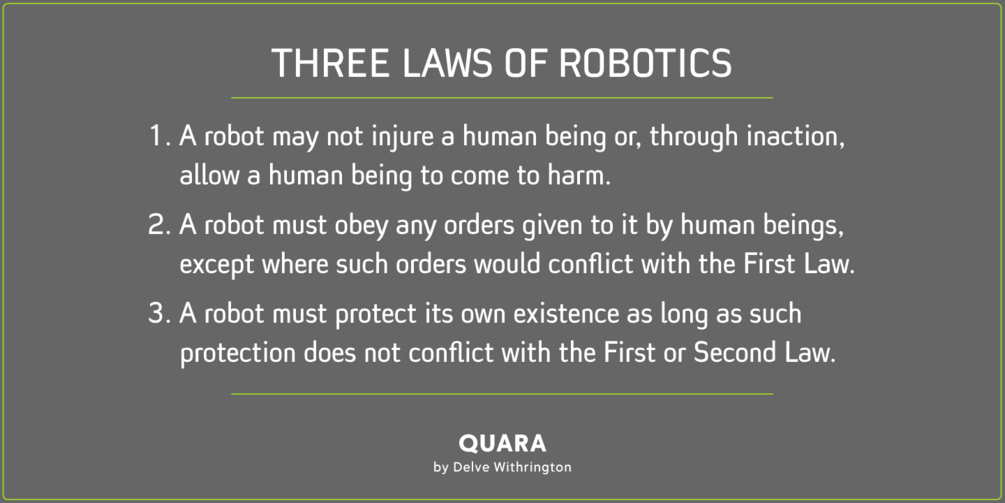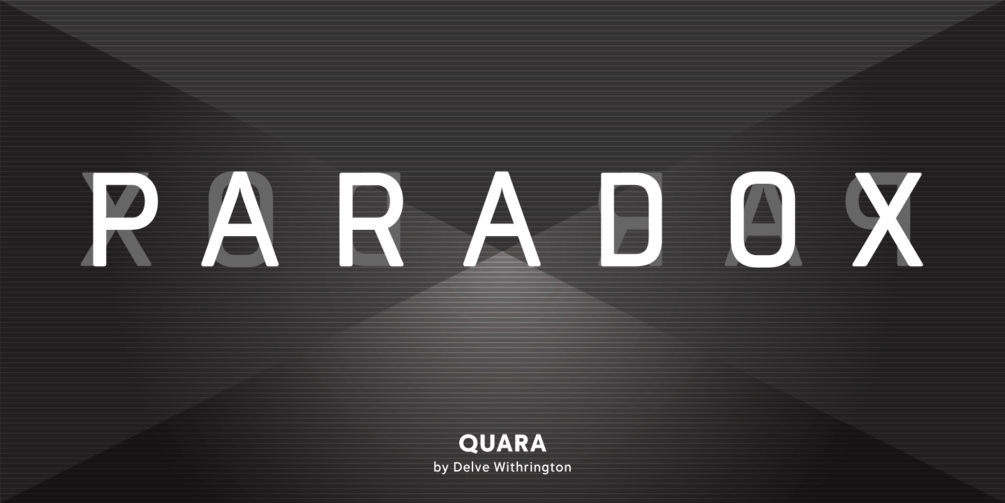
Quara is a design that takes its cues from cutting-edge technology and new gadget lust. Quara enjoys short downloads on the web, long walks on mobile devices, and romantic dinners by LED light. An avid gamer (esp. MMORPG) and science fiction fan, Quara longs to be the first font in space and have its pixels scattered among the stars. Quara was designed by Delve Withrington.